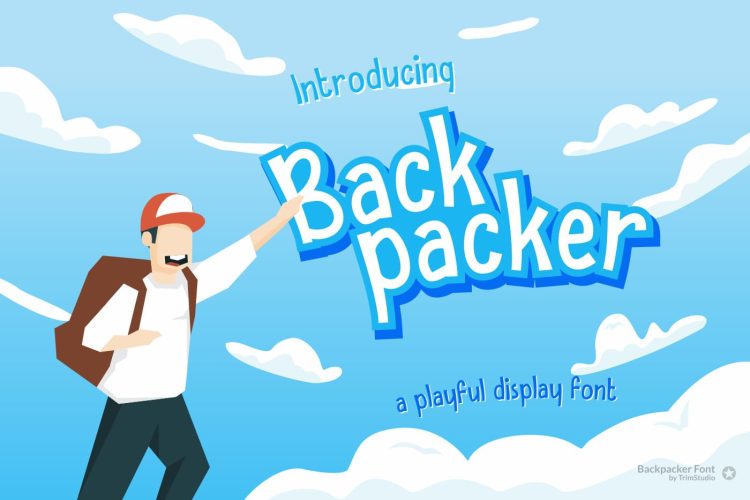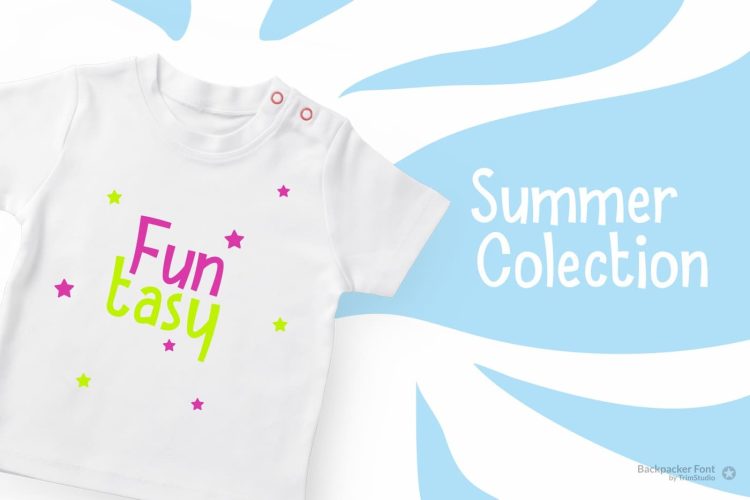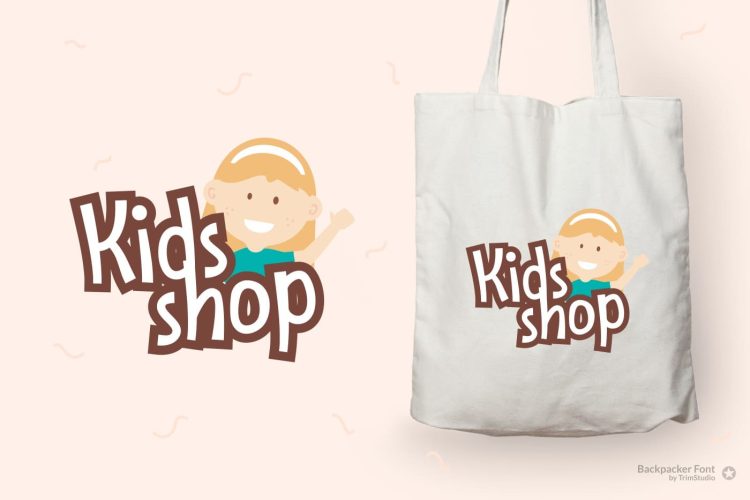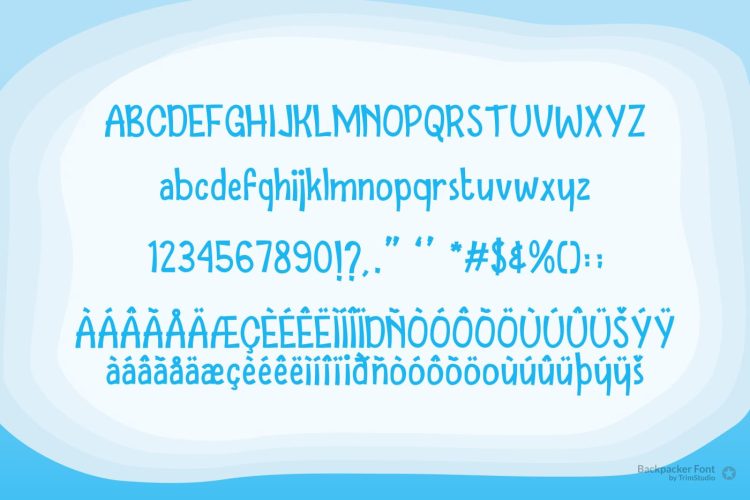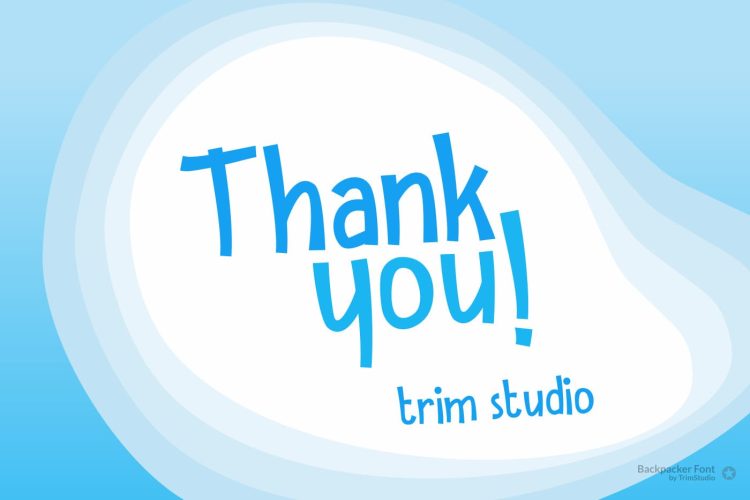
Backpacker is a playful display font with a cheerful theme, perfect for various design projects. It brings a fun and joyful feel to your work, and is well-suited for branding, toy stores, pet shops, invitation cards, t-shirts, bags, and many more!
- Character Set A-Z
- Numerals & Punctuations
- Multilingual Support
- ÀÁÂÃÅÄÆÇÈÉÊËÌÍÎÏÐÑÒÓÔÕÖØÙÚÛÜŠÝŸÞ
- àáâãåäæçèéêëìíîïiðñòóôõöøùúûüþýÿsš
- PUA Encoded Characters